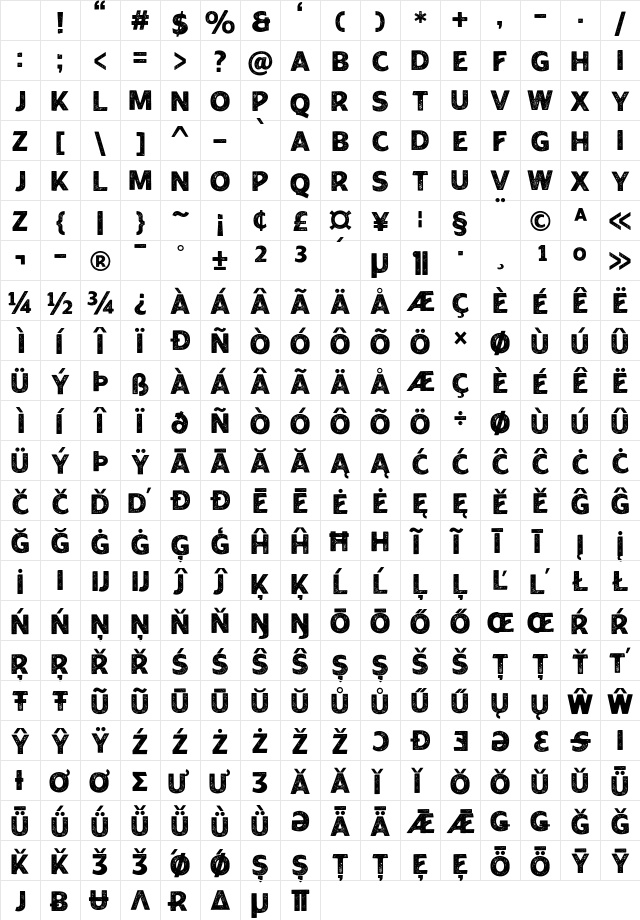
Rougant Rough PERSONAL USE ONLY embraces imperfection - its rough, textured character adds raw authenticity to designs that want to feel lived-in and unconventional.
Pro Tip: Use Rougant Rough PERSONAL USE ONLY at larger sizes where the texture and irregularity of each letterform can be clearly seen - it loses its character at small sizes.